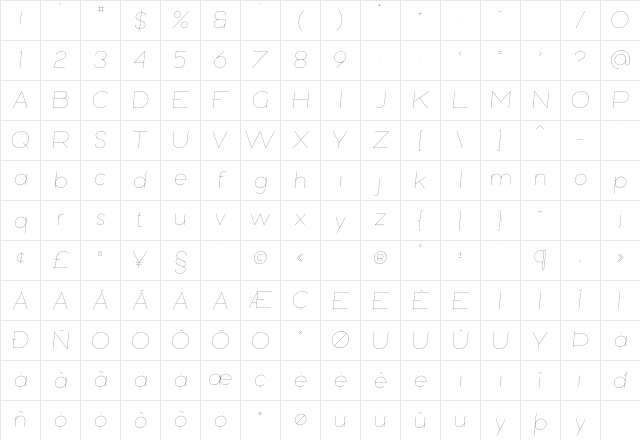
Complete Bubbble Gum Italic Hairline glyph index. Displaying only characters natively supported by Bubbble Gum Italic Hairline font.
Bubbble Gum is a composed and adaptable typeface that performs quietly and consistently across a wide range of design contexts. The slanted form adds forward momentum and visual energy. Its slender proportions lend an understated elegance to any composition.